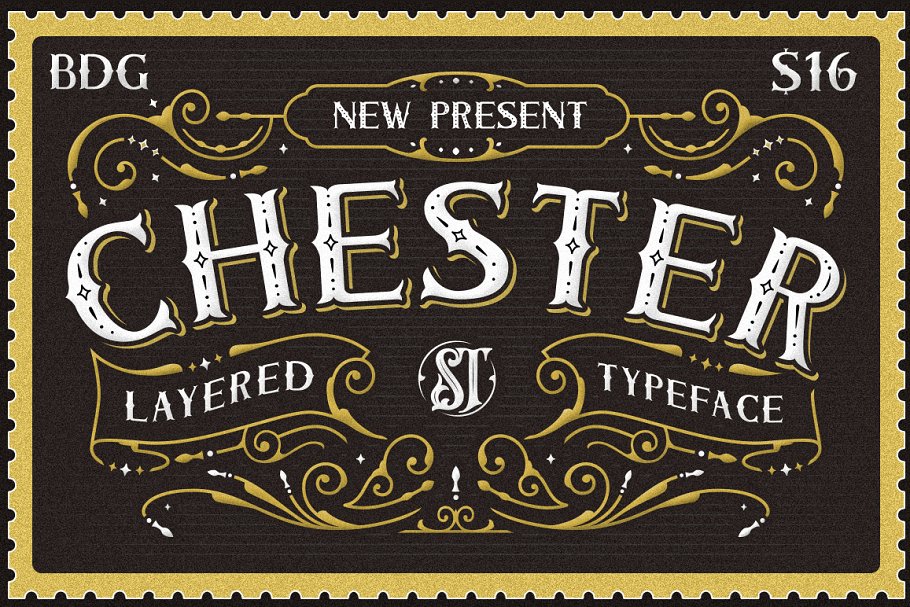
Introducing Chester Typeface: The Font Style For Happy Birthday
Are you tired of the same old boring fonts? Do you want to add a touch of happiness and excitement to your designs? Look no further because Chester Typeface is here to bring joy to your creations!
Created by the talented Panji Nugraha, Chester Typeface is a serif font that will instantly captivate your audience. But it's not just any ordinary font – it's the font style for happy birthday celebrations! With its unique decorative shapes, this font will make your birthday wishes stand out from the crowd.
But that's not all – we have a surprise for you! We are thrilled to introduce the new layered font family, Chester. Inspired by old postcard stamps and rustic sign paintings, this font collection offers endless possibilities for your designs. With its 5 font system, including Basic, Inline, Inner dot, Gradient Inline, Shadow Outline, and Drop Shade, you can create stunning effects that will leave a lasting impression.
Imagine using Chester Typeface for your logo, product packaging, labeling, or classic shop. It's perfect for badges, quotes, signs, movie titles, t-shirts, posters, greeting cards, letterheads, book covers, and any artwork you can think of! Its versatility knows no bounds, and it will elevate your designs to new levels of creativity.